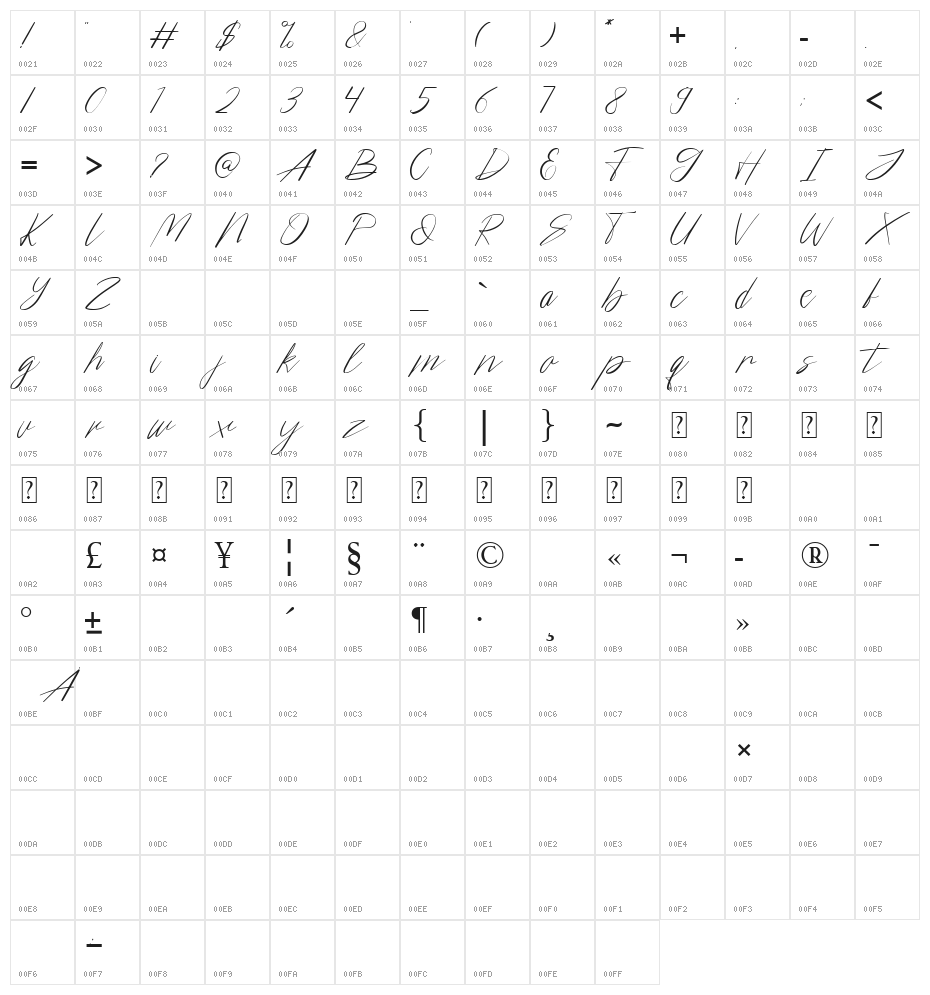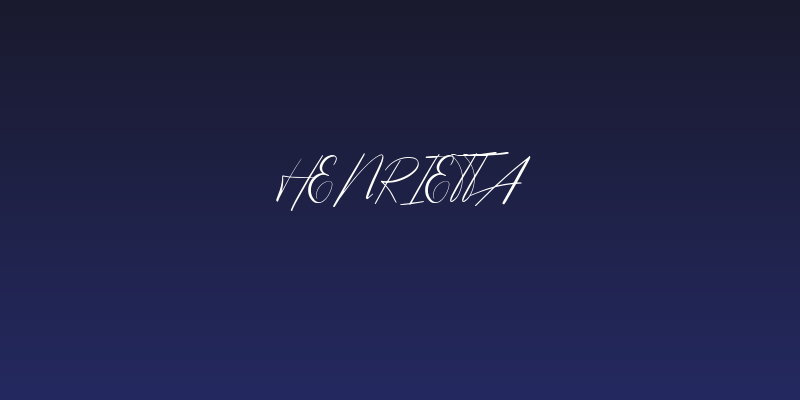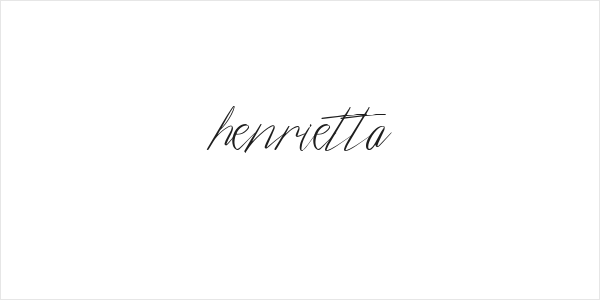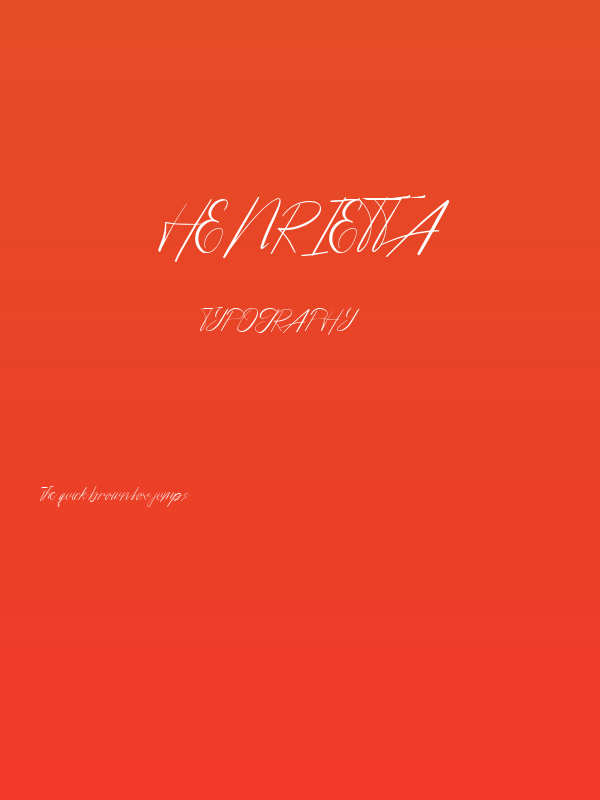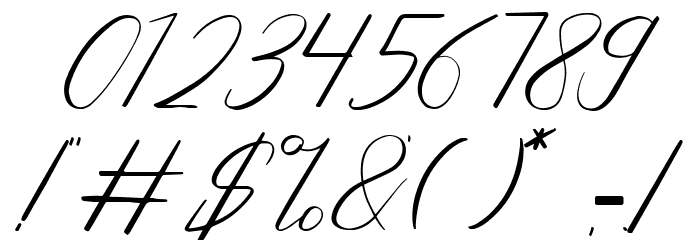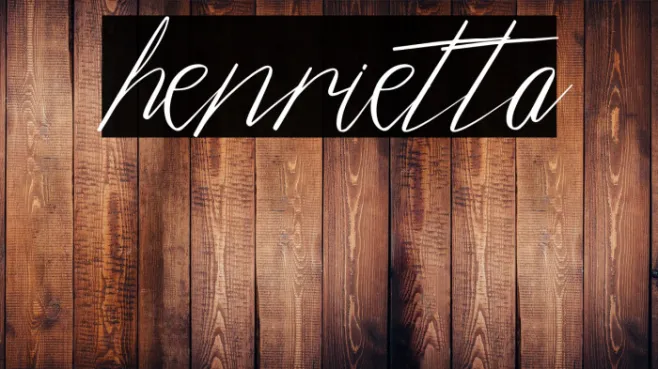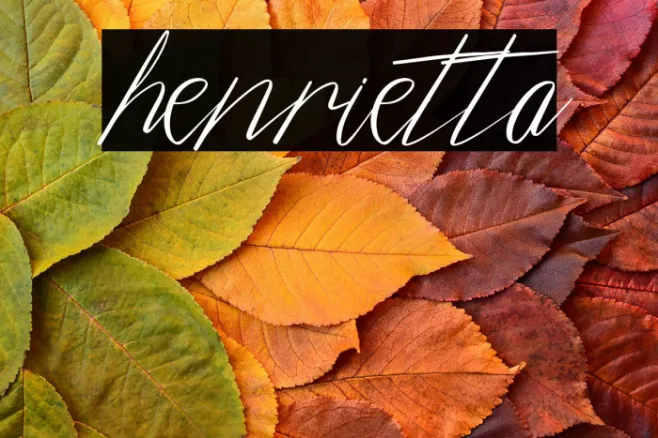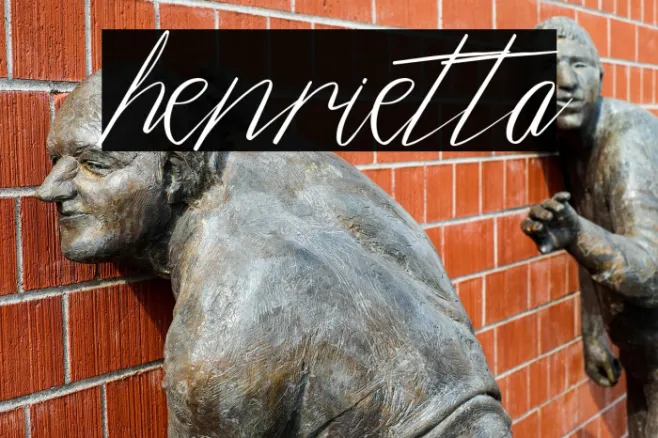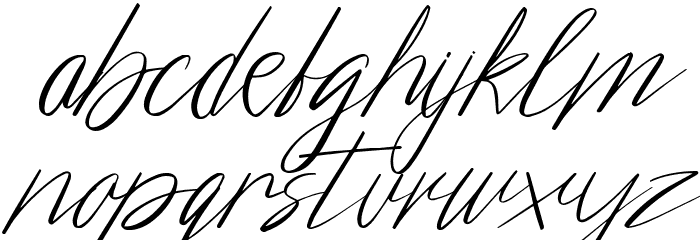
henrietta Font
henrietta Description
This font exudes elegance and fluidity, characterized by its cursive, handwritten style. The letters are interconnected with smooth, flowing strokes, giving it a natural and artistic appearance. The uppercase letters are slightly more elaborate, with extended lines and loops, while the lowercase letters maintain a consistent rhythm and balance. The numerals and special characters complement the alphabet with similar stylistic features, ensuring a cohesive look. The overall impression is one of sophistication and grace, making it suitable for projects that require a personal touch.